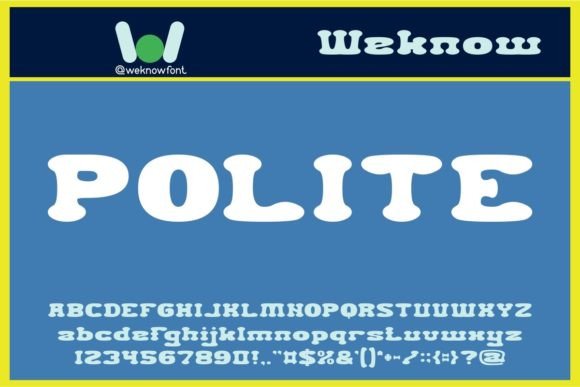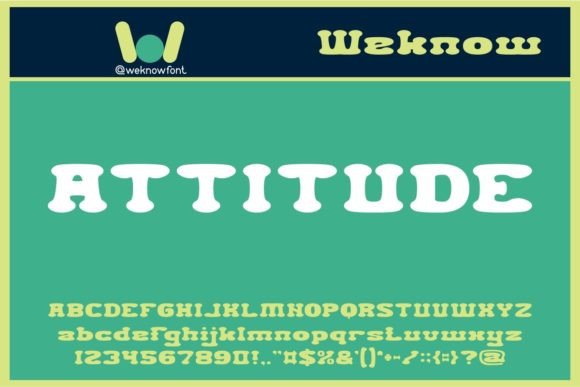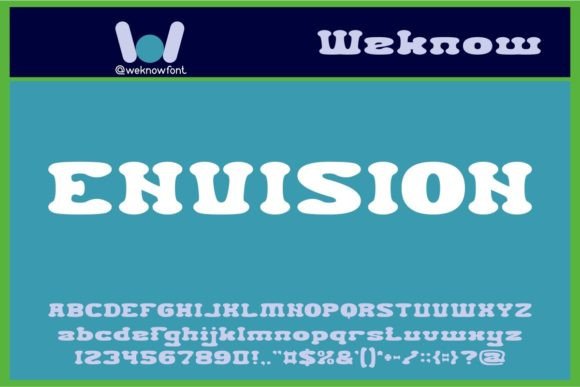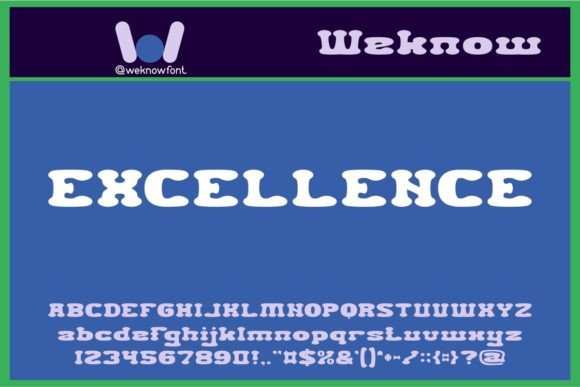
Introducing Apologize Font: The Fun and Groovy Display Font You Need
Are you tired of using the same old fonts in your creative projects? Look no further than Apologize Font, a trendy and stylish display font that’s sure to elevate all your ideas. In this article, we’ll dive into the features and benefits of Apologize Font, and explore how it can add a touch of fun and grooviness to your designs.
What is Apologize Font?
Apologize Font is a display font that’s perfect for creative projects that require a bit of personality. With its unique and stylish design, this font is sure to grab attention and make your work stand out. Whether you’re a designer, crafter, or DIY enthusiast, Apologize Font is a great addition to your font library.
Key Features of Apologize Font
- Fun and Groovy Design: Apologize Font has a playful and trendy design that’s perfect for creative projects that require a bit of personality.
- Trendy and Stylish: This font is perfect for designers and crafters who want to stay on top of the latest design trends.
- Elegant and Versatile: Apologize Font can be used for a wide range of creative projects, from posters and flyers to social media graphics and crafts.
- Easy to Read: Despite its unique design, Apologize Font is easy to read and understand, making it perfect for use in a variety of contexts.
Benefits of Using Apologize Font
So why should you choose Apologize Font for your creative projects? Here are just a few benefits of using this fun and groovy display font:
- Adds Personality to Your Designs: Apologize Font is a great way to add a bit of personality to your designs and make them stand out from the crowd.
- Perfect for Creative Projects: Whether you’re working on a poster, flyer, or social media graphic, Apologize Font is a great choice for creative projects that require a bit of flair.
- Versatile and Flexible: Apologize Font can be used in a wide range of contexts, from formal to informal, making it a great addition to your font library.
- Easy to Pair with Other Fonts: Apologize Font pairs well with a variety of other fonts, making it easy to create unique and stylish combinations.
How to Use Apologize Font
So how can you use Apologize Font in your creative projects? Here are a few ideas to get you started:
- Posters and Flyers: Use Apologize Font to create eye-catching posters and flyers that grab attention and communicate your message.
- Social Media Graphics: Add a touch of personality to your social media graphics with Apologize Font, perfect for creating engaging and shareable content.
- Crafts and DIY Projects: Use Apologize Font to add a personal touch to your crafts and DIY projects, from handmade cards to decorative signs.
- Branding and Packaging: Apologize Font is also a great choice for branding and packaging, adding a bit of flair and personality to your products.
Tips and Tricks for Getting the Most Out of Apologize Font
Here are a few tips and tricks for getting the most out of Apologize Font:
- Pair with Other Fonts: Try pairing Apologize Font with other fonts to create unique and stylish combinations.
- Use in Combination with Images: Use Apologize Font in combination with images to create visually appealing and engaging designs.
- Have Fun and Be Creative: Most importantly, have fun and be creative with Apologize Font! Experiment with different designs and ideas to find what works best for you.
In conclusion, Apologize Font is a fun and groovy display font that’s perfect for creative projects that require a bit of personality. With its trendy and stylish design, this font is sure to elevate all your ideas and add a touch of flair to your designs. Whether you’re a designer, crafter, or DIY enthusiast, Apologize Font is a great addition to your font library.